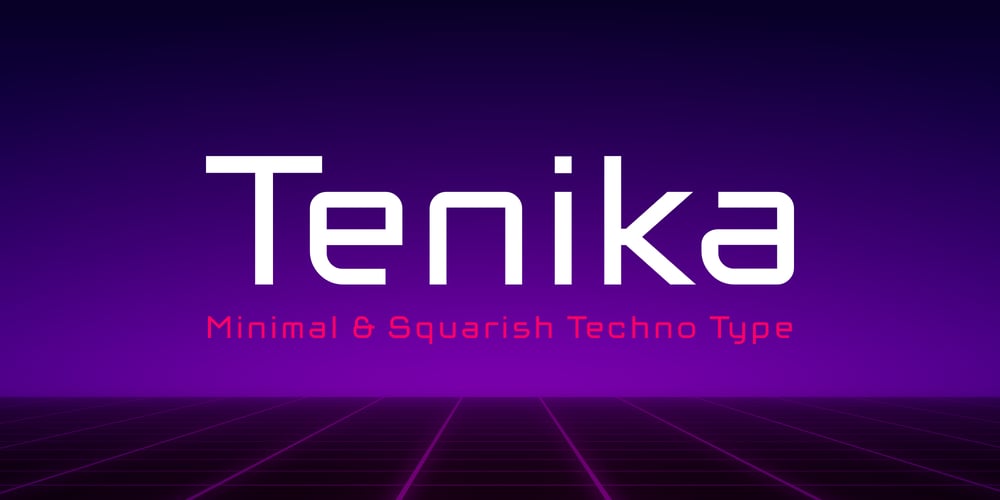
Tenika Font Family was designed by Wahyu Wibowo and published by Eaver Studio. Tenika contains 2 styles and family package options. Minimal & squarish techno style type for your graphic design project. Designed based off a modified square for the small letters and developed to have the capital letters. Available in upright and oblique (italic).